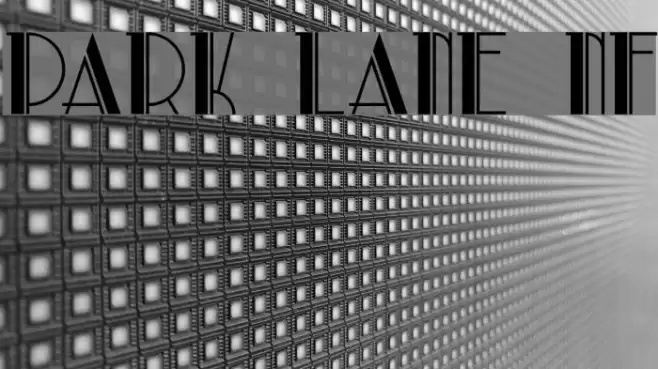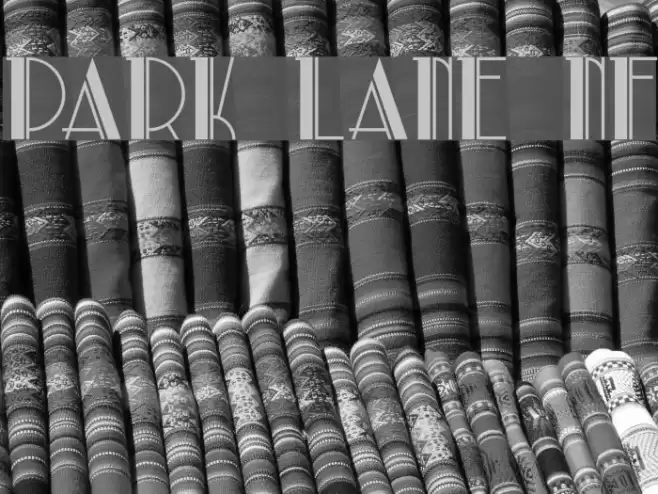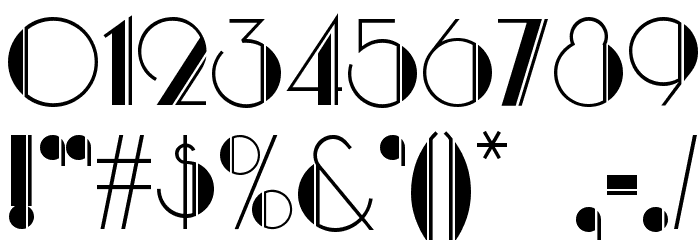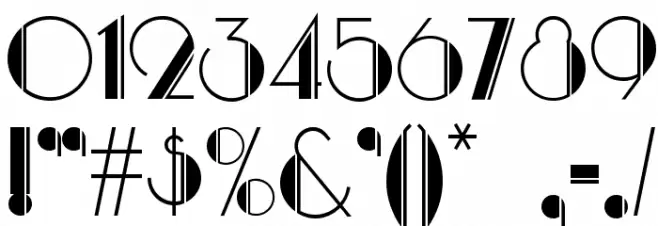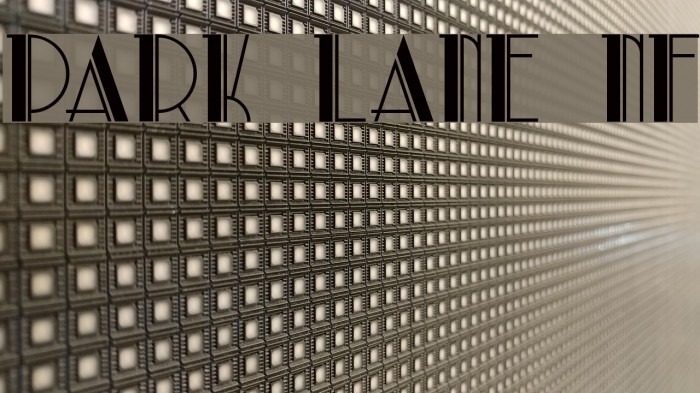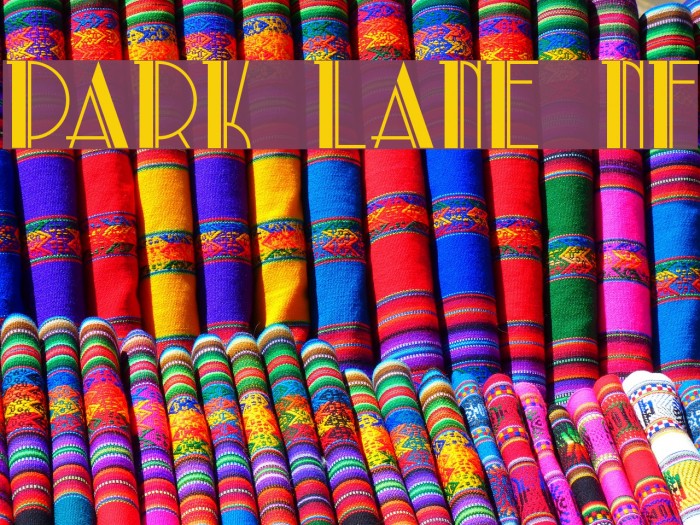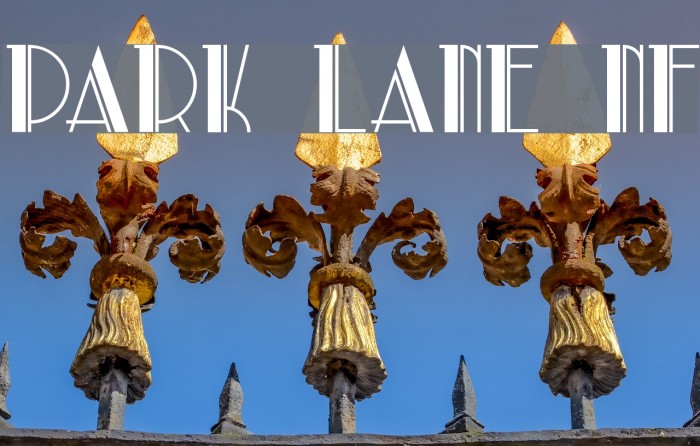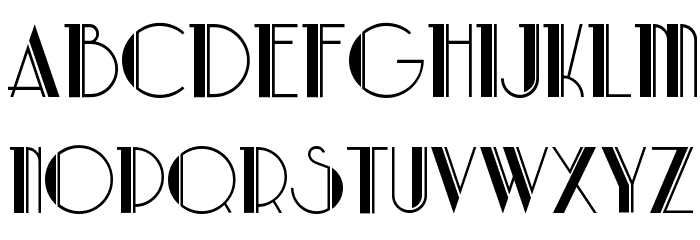
Park Lane NF Font
Park Lane NF Description
This font exhibits a striking Art Deco style, characterized by its geometric shapes and bold lines. The uppercase letters are tall and narrow, with sharp angles and a sense of symmetry. The lowercase letters maintain a similar aesthetic, offering a cohesive look. Numbers and special characters follow the same design principles, ensuring consistency across all elements. The font's unique style is both decorative and functional, making it suitable for a variety of design projects. Its distinct appearance is perfect for creating eye-catching headlines and titles.
A bold, Art Deco-inspired font with geometric shapes and sharp angles from Retro fonts.
- Proposed Projects: Ideal for vintage-themed posters, luxury brand logos, and editorial headlines.
- Overall Style: Vintage